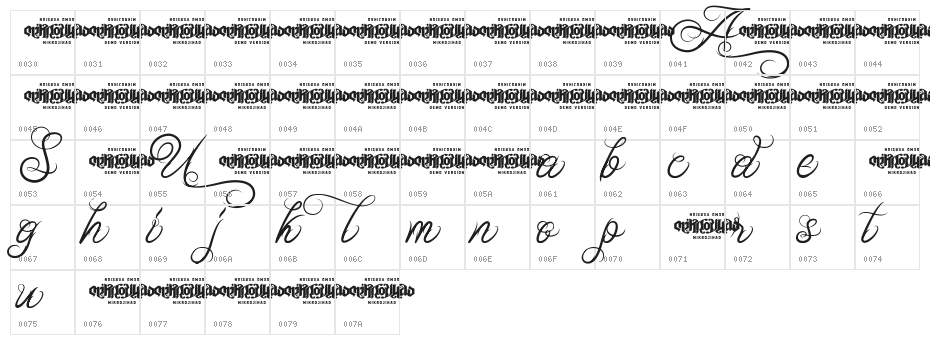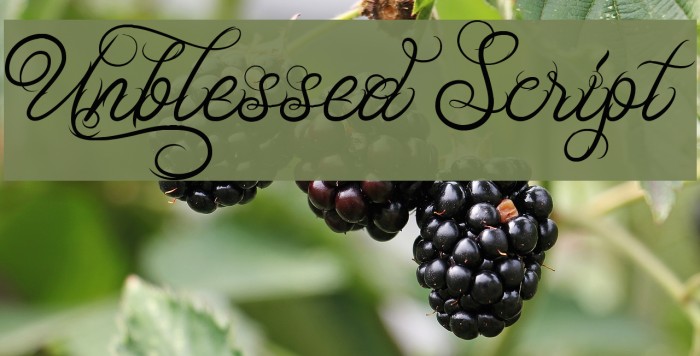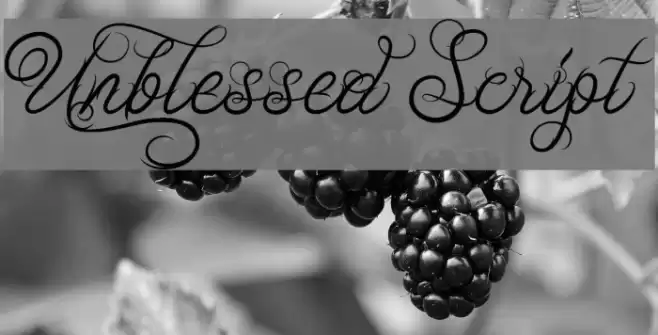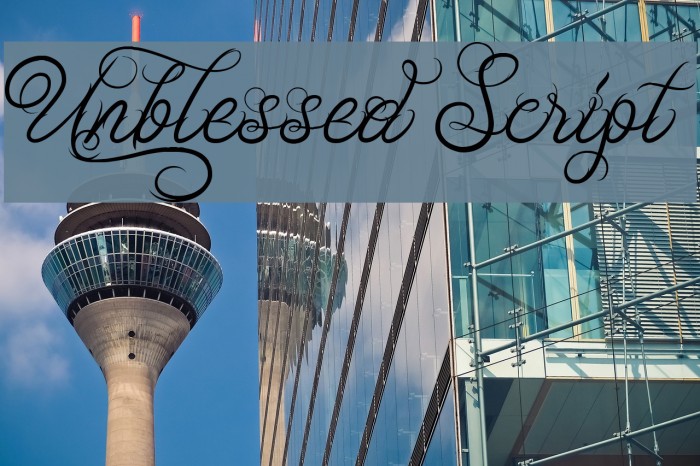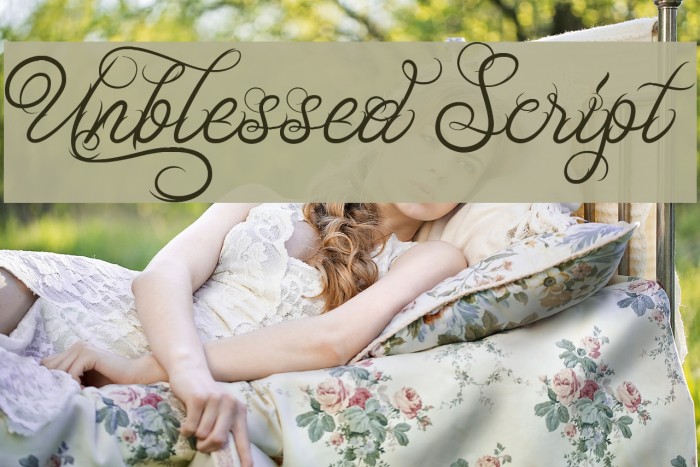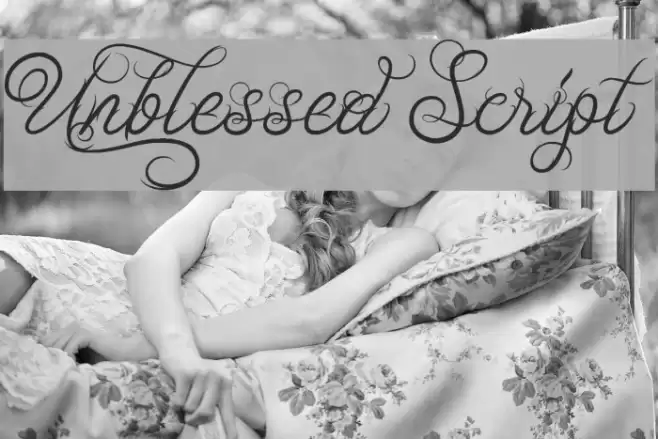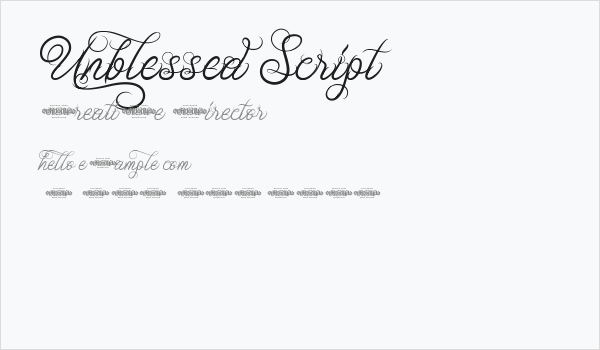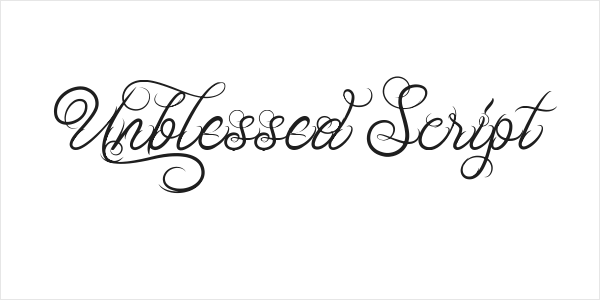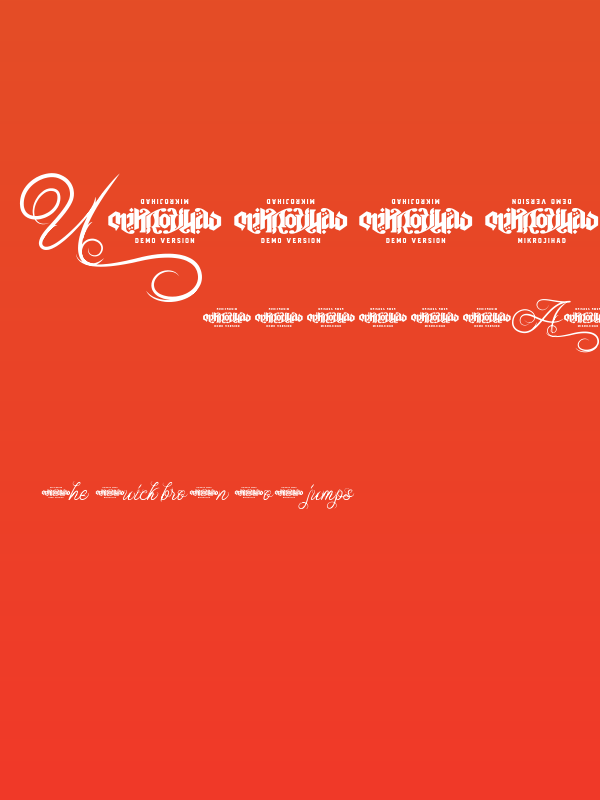
Unblessed Script Font
Unblessed Script Description
This font is a beautifully crafted script with elegant, flowing lines and intricate swashes. The uppercase letters are particularly ornate, featuring elaborate loops and flourishes that give a sense of sophistication and grace. The lowercase letters maintain a consistent style, with smooth, connected strokes that enhance readability while preserving the decorative nature. The font's overall appearance is reminiscent of classic calligraphy, making it suitable for projects that require a touch of elegance and tradition. The characters are well-spaced, allowing for a harmonious flow in text, and the high contrast between thick and thin strokes adds to its visual appeal.
| Proposed Projects | Ideal for wedding invitations, elegant branding, luxury packaging, and decorative headings. |